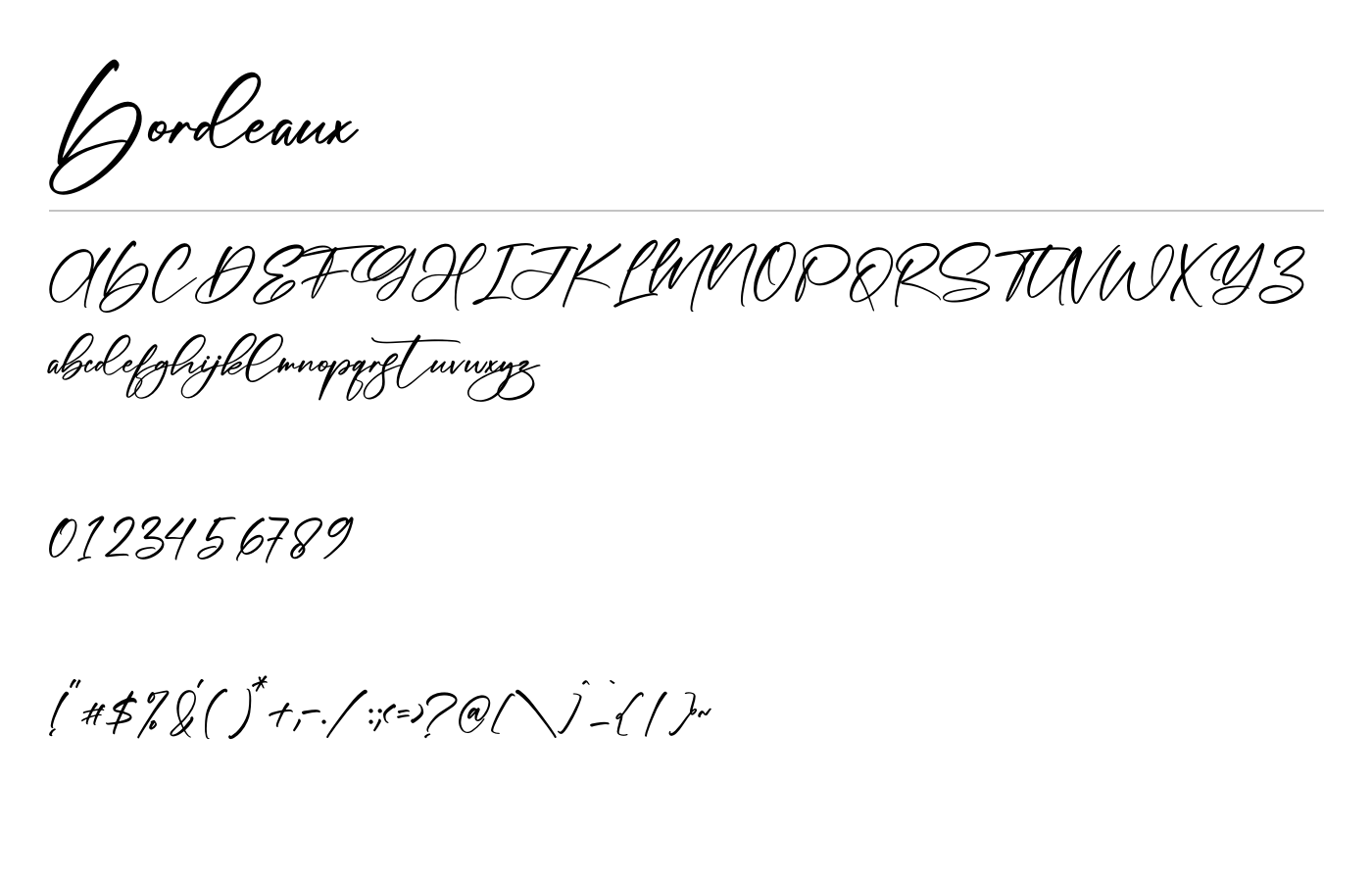
Bordeaux is an elegant script font characterized by its flowing, handwritten style with delicate, fine strokes and a slightly tall x-height that enhances readability. Its graceful curves and fluid letterforms convey a personal, sophisticated, and artistic personality, making it ideal for fashion branding, invitations, and upscale editorial designs. This font works best in logos, headlines, and decorative text where a touch of refined charm and individuality is desired.
Bordeaux Font
About Bordeaux Font